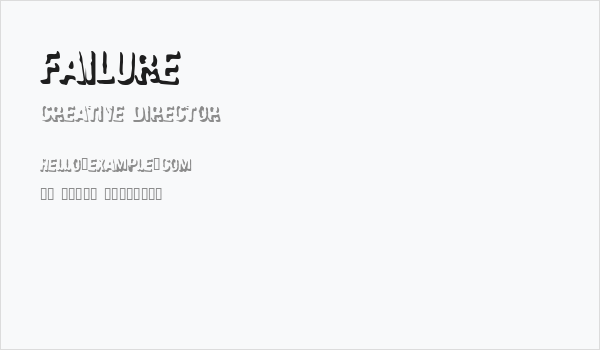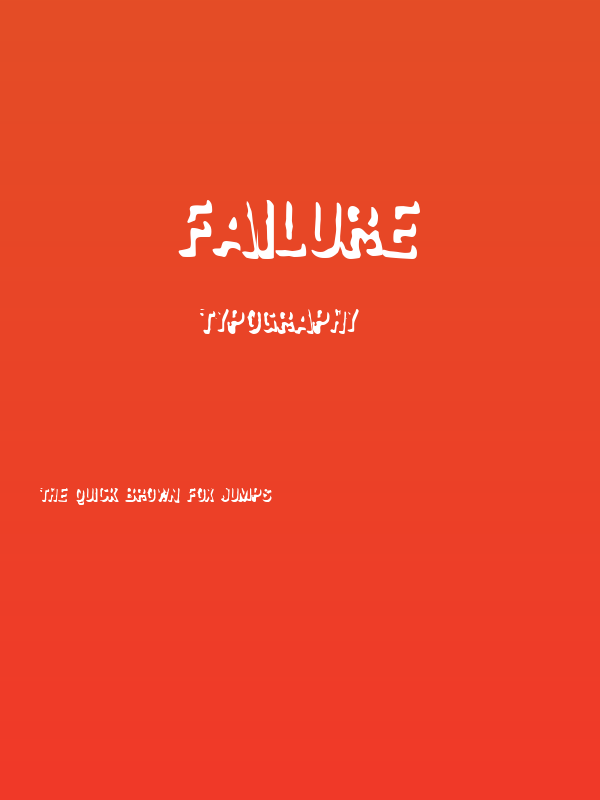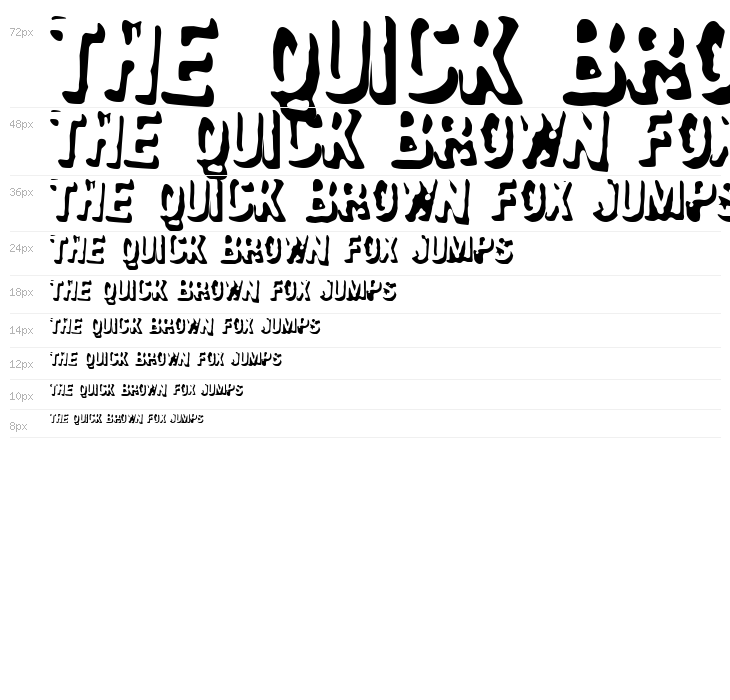
Failure Font
Failure Description
This font features a highly decorative and abstract style, characterized by irregular, jagged edges and a bold, impactful presence. The uppercase letters are uniquely distorted, giving them a dynamic and chaotic appearance. The lack of lowercase letters and numbers suggests a focus on artistic expression rather than practicality. The font's design is reminiscent of graffiti or street art, with a rebellious and unconventional flair. Its bold strokes and uneven shapes make it stand out, ideal for projects that require a strong visual impact.
| Proposed Projects | Ideal for street art-inspired designs, edgy posters, album covers, or any project needing a bold, artistic statement. |